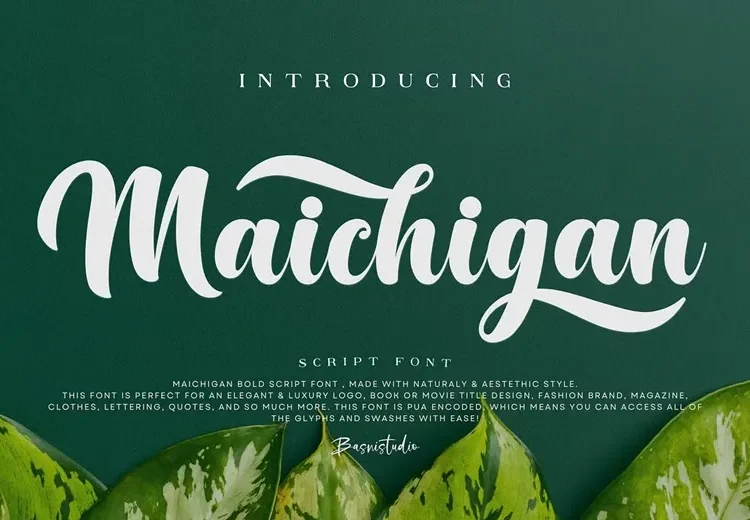
Maichigan Font
Maichigan is a bold calligraphy script font crafted with a naturally aesthetic style, exuding elegance and sophistication. This font is an excellent choice for luxury logos, fashion brands, movie or book titles, magazines, and clothing lines. Its smooth and flowing strokes add a refined touch to lettering, quotes, and various creative projects.
With its blend of boldness and grace, Maichigan enhances any design with a luxurious and artistic vibe. Whether used for branding or decorative purposes, this font brings a timeless charm that elevates your work to the next level.